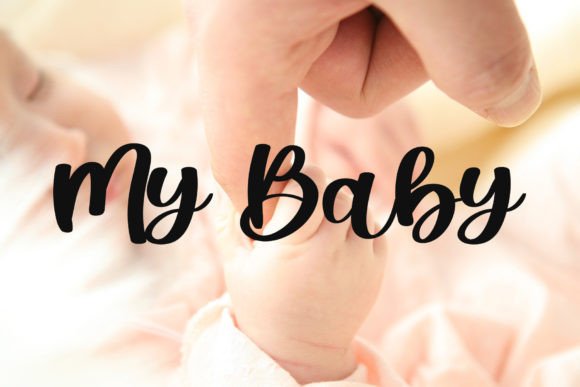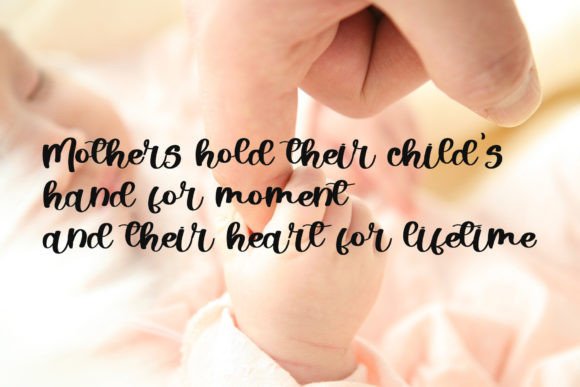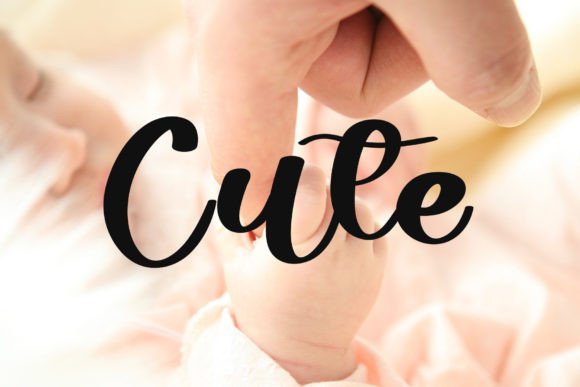
Introduction to Mom Font
Remember the thrill of discovering that perfect font for your creative project? The one that makes your design stand out from the crowd and speaks directly to your audience? For many designers, that moment of triumph comes with the help of a free download – a high-quality font that adds a touch of personality to any design.
One such font that has captured the hearts of designers everywhere is the Mom Font. With its quirky, handwritten style and natural, personal feel, this font is the perfect addition to any design project looking to add a dash of whimsy and individuality.
Whether you’re working on a design project with a transparent background or creating a brand identity that requires a unique touch, the Mom Font is a valuable resource that’s sure to deliver. In this article, we’ll dive deeper into the world of Mom Font and explore its features, uses, and why it’s become a favorite among designers.
Key Features of Mom Font
- High-quality design: Mom Font is a premium font designed for creative projects, ensuring a professional and polished look.
- Transparent background: The font has a transparent background, allowing for easy layering and manipulation in design software.
- Resolution: The font is optimized for high-resolution displays, making it perfect for use in print and digital projects.
- Unique characteristics: Mom Font features a unique, hand-drawn style that sets it apart from other fonts in its category.
- Perfect for design resources: Mom Font is an excellent addition to any designer’s toolkit, offering a versatile and stylish option for creative projects.
Honest Review: Mom Font
I recently had the chance to experiment with Mom Font, a free download that’s gained popularity among designers for its unique and playful style. Initially, I was drawn to its creative and cursive feel, which I thought would be perfect for a project I’m working on.
What works well about Mom Font is its high quality and versatility. The font comes with a transparent background, making it easy to overlay on various backgrounds without any issues. It also supports a wide range of languages, which is a plus for designers working on international projects.
Here are some of the key features that make Mom Font stand out:
- ✨ High-quality and clear font rendering
- ✨ Supports a wide range of languages
- ✨ Transparent background for easy overlay
However, there are a few limitations to consider. Mom Font is a relatively new font, and while it’s stable, it may not be as comprehensive as more established fonts. Additionally, some users may find the font’s style too playful or cursive for certain projects.
Overall, I’m impressed with Mom Font’s potential and would recommend it to designers looking for a unique and high-quality font for their creative projects. Just be aware of its limitations and use it accordingly.
Tips for Getting the Most Out of Mom Font
For the best results, use Mom Font in conjunction with other high-quality design resources. Experiment with different font sizes and colors to add visual interest to your design.
Common Use Cases for Mom Font
Mom Font is commonly used in family-themed designs, such as invitations, party decorations, and personal stationery. Its playful and whimsical style makes it a great choice for creative projects.
Alternatives to Mom Font
1. Pacifico
Pacifico is a beautiful, elegant script font perfect for creative projects that require a touch of sophistication. It’s a free download and can be used for a variety of purposes, including wedding invitations, restaurant menus, and more. When to use: high-end branding, luxury products, and elegant designs. Compared to Mom Font, Pacifico has a more refined and polished look.